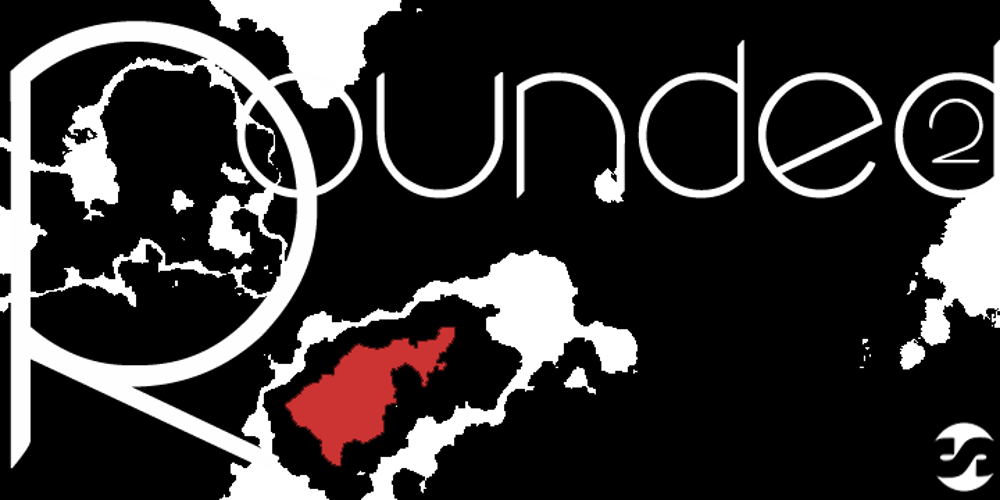
Rounded, Two.
Rounded, Two. font
Rounded, Two. Font Family was designed by Fran Board and published by Siren Fonts. Rounded, Two. contains 1 styles and family package options. Rounded, two was designed with a simple idea in mind: the basis for the majority of the characters is a perfect circle. That circle is then intersected and cropped to make unique, modern and stylish letterforms. Rounded, two is an improved version of my initial experimentation. The font looks good at all sizes, but particularly for large displays where the elegant simplicity of each character can be appreciated.